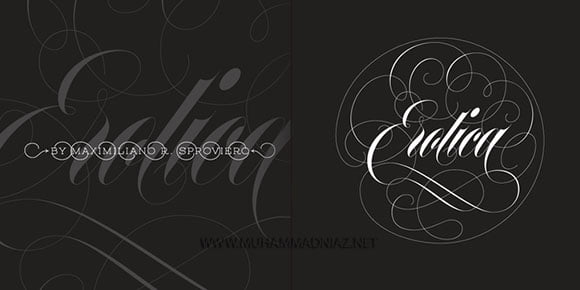
Erotica Font Family Free Download
Erotica font family was born out of the passion for calligraphy and its interpretation in a new typographic way. Some of Erotica’s characters were drawn with a pencil first before using the pen. Maximiliano Sproviero combined really thick and very thin hairlines with sweeping curves. The complete font family includes lots of alternates and features, which give you amount of possibilities when choosing the right style for your se.y letterings. To make Erotica suitable for small sizes too, Maximiliano Sproviero has created Erotica Small. This font can be printed in small sizes without any problems. The Erotica Inline was designed for a more elegant purpose. As a perfect companion to this calligraphic style, Maximiliano Sproviero created Erotica Capitals, which can be used with or without its alternates to accompany Erotica. The Erotica font family was awarded in 2013 with the Certificate of Excellence in Type Design of the 59th TDC (Type Directors Club) Typeface Design Competition.